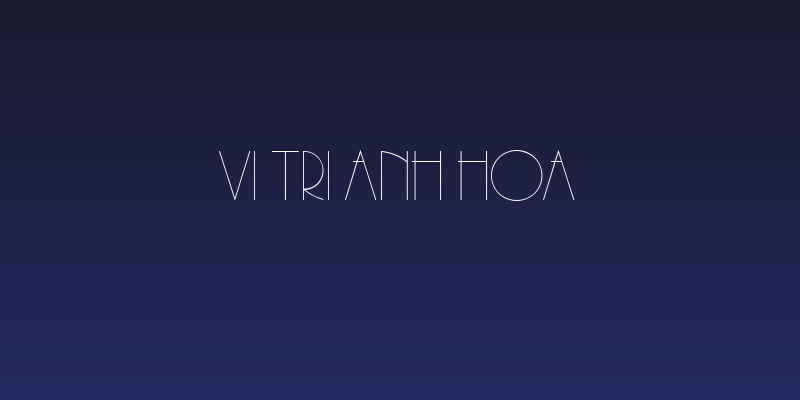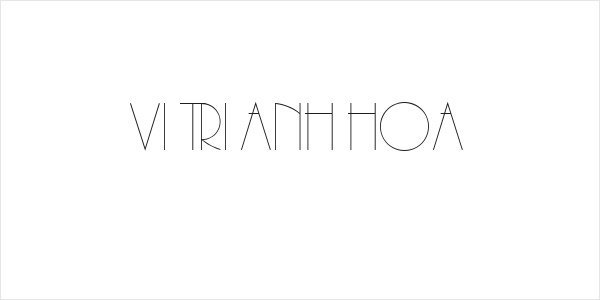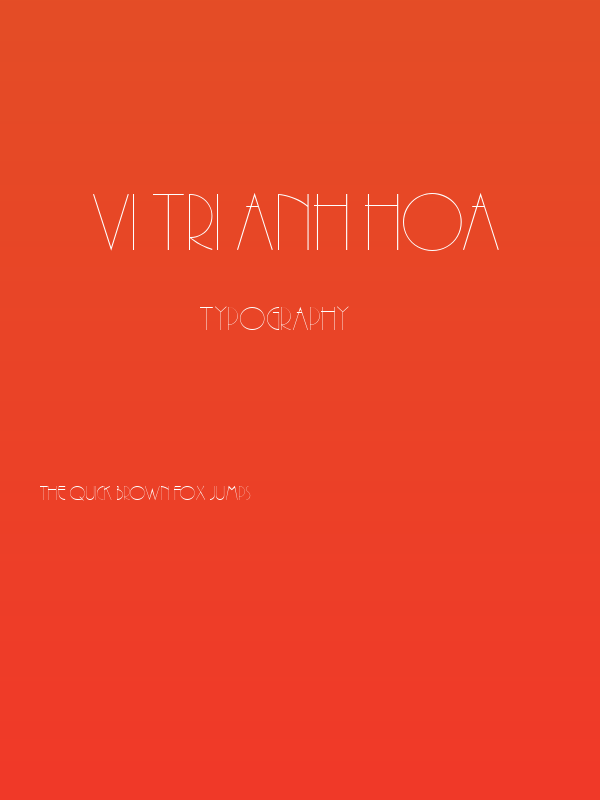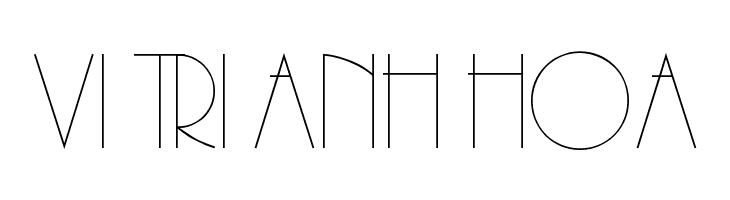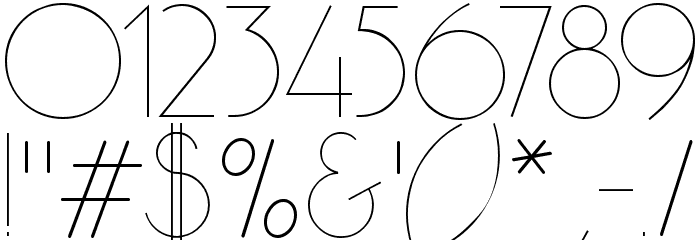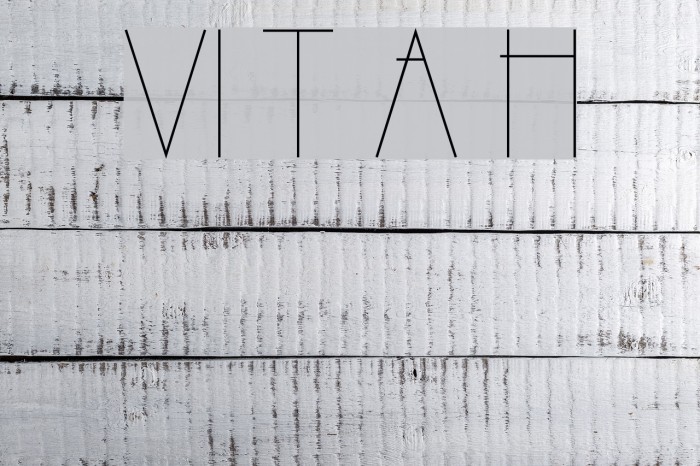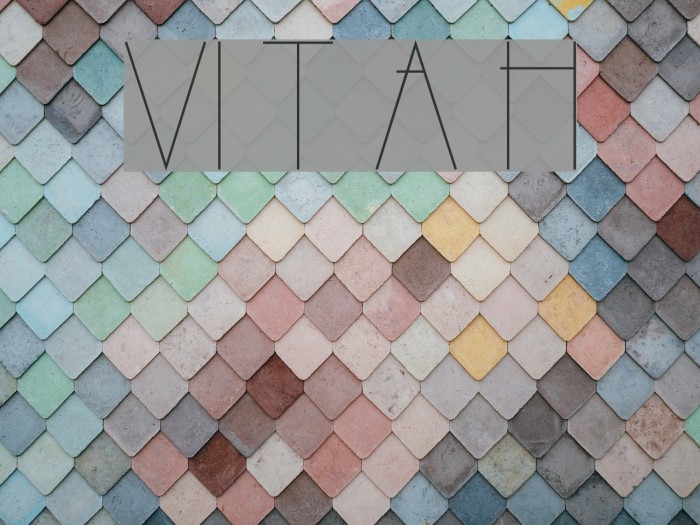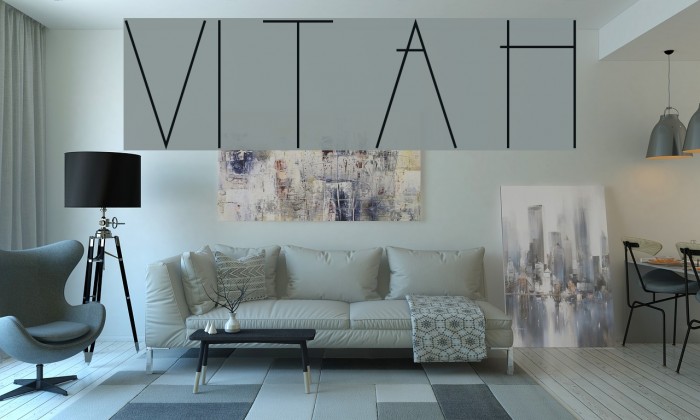
VI Tri Anh Hoa Font
VI Tri Anh Hoa Description
This font features a sleek and modern design with elongated, thin strokes that give it a sophisticated and elegant appearance. The characters are crafted with a geometric precision, showcasing a minimalist aesthetic that is both stylish and contemporary. The uppercase letters are tall and narrow, while the lowercase letters maintain a consistent height, creating a harmonious balance. The numerals and special characters are designed to complement the overall style, with clean lines and a uniform structure. This font is ideal for projects that require a touch of elegance and modernity.
| Use Case | Logos, Headlines, Invitations |
| Proposed Projects | Ideal for luxury branding, fashion magazines, modern art posters, and elegant invitations. |